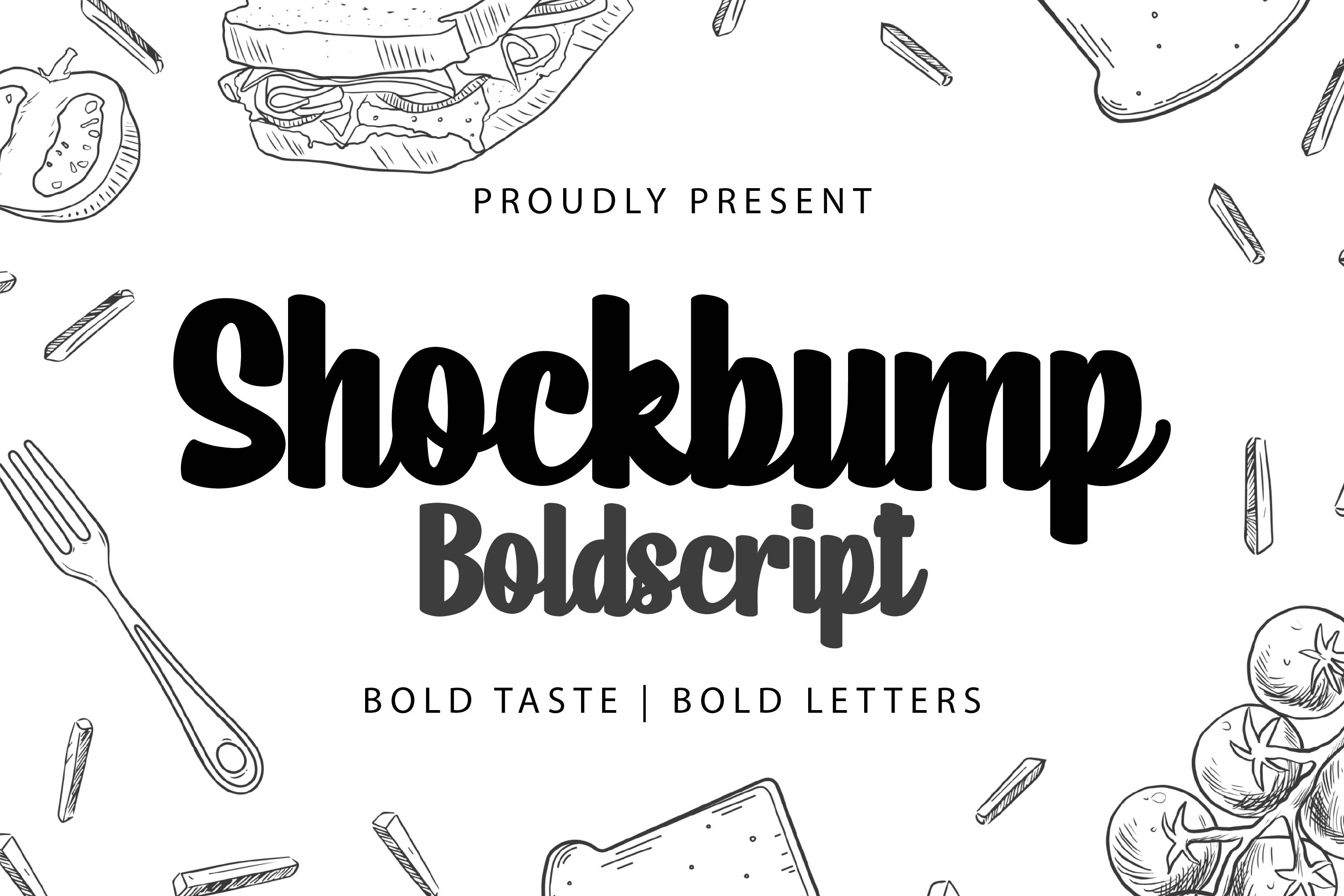
Shockbump - Bold Script Font
Shockbump is a bold script font that combines strong strokes with a rounded, friendly vibe. It’s made to grab attention — ideal for food and beverage labels, snack packaging, bold advertising, retro posters, and energetic brand identity. With its smooth flow and thick texture, Shockbump delivers impact and charm in every curve. Bring flavor and confidence to your next project with this fun-loving typeface.